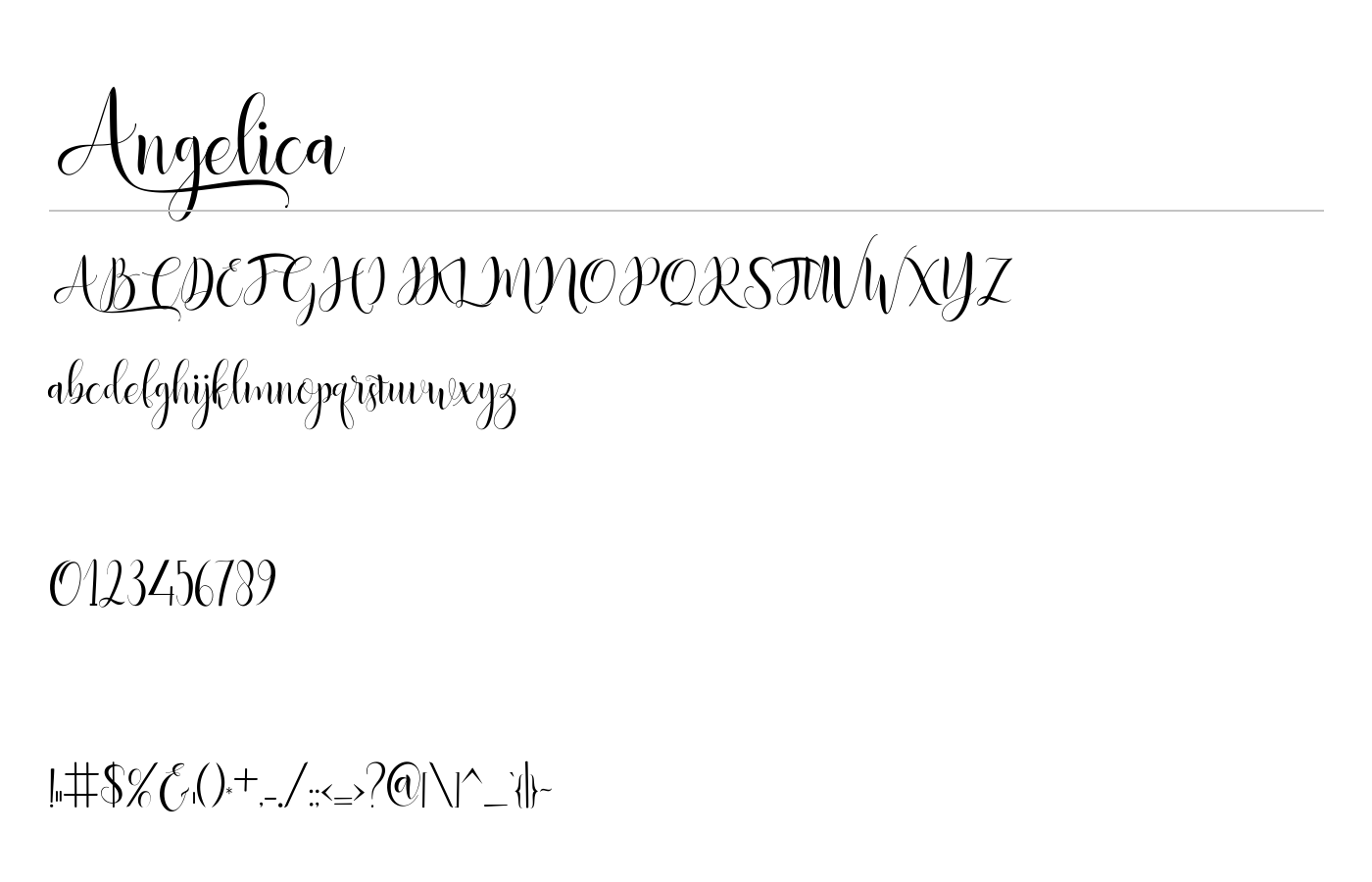
Angelica Font is a delicate, elegant script typeface with graceful, flowing letterforms that feature high contrast between thick and thin strokes, giving it a refined and sophisticated look. Its ornate swashes and distinctive curves make it perfect for luxury branding, wedding invitations, and any design requiring a feminine, artistic touch. This font shines best in large sizes where its intricate details can be fully appreciated, making it ideal for headlines and decorative uses.
Angelica Font
About Angelica Font
| Font family | Angelica Font |
| Designer | Muhammad_Takiyuddin |